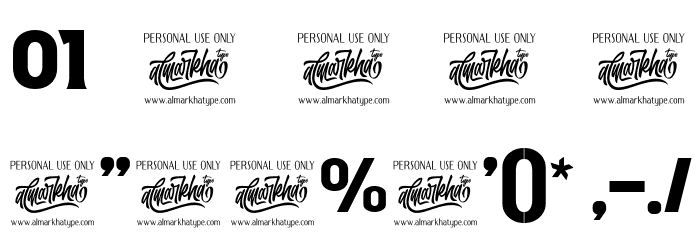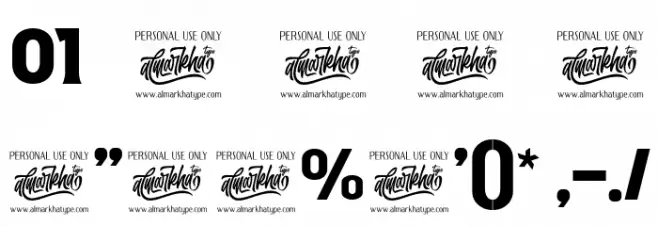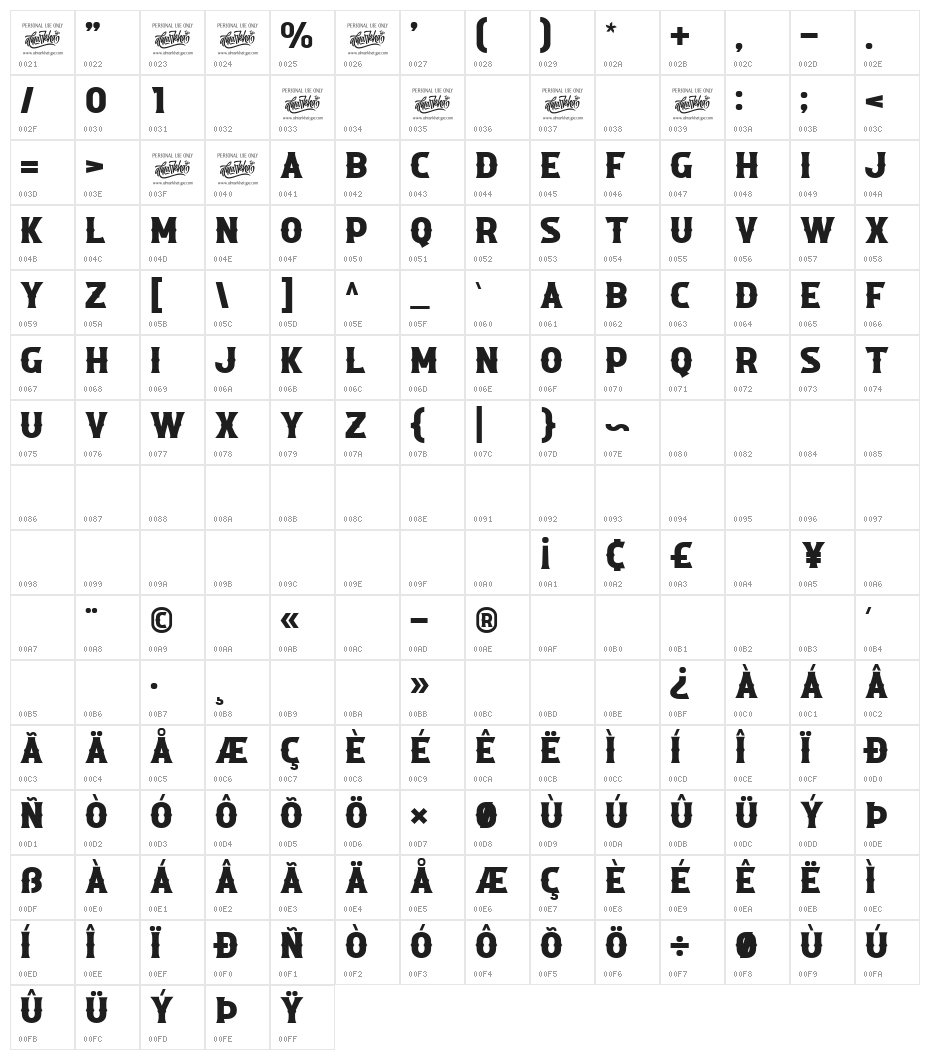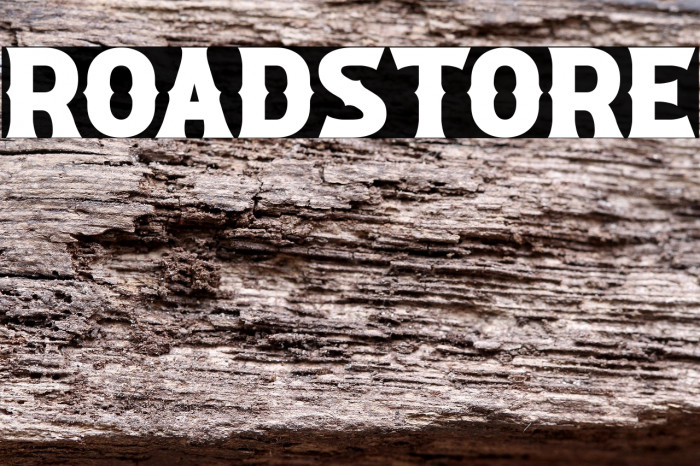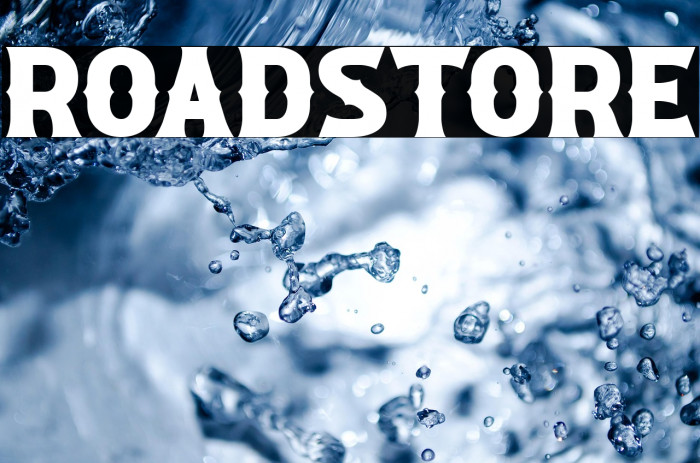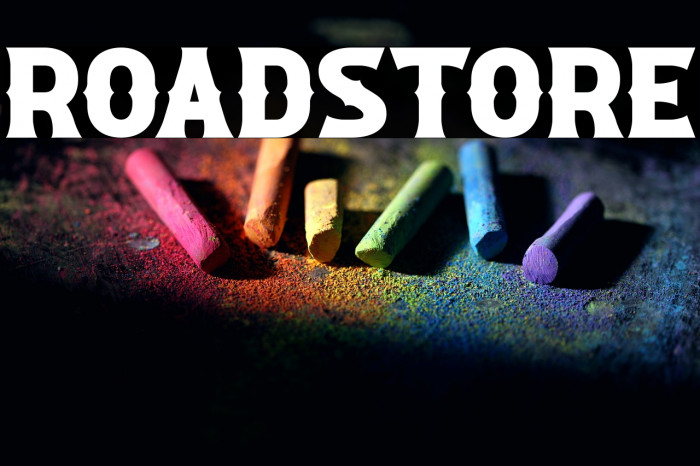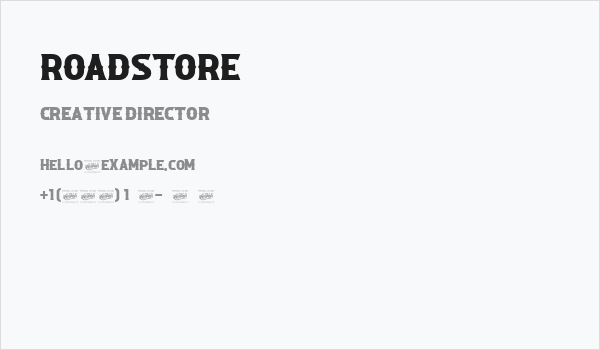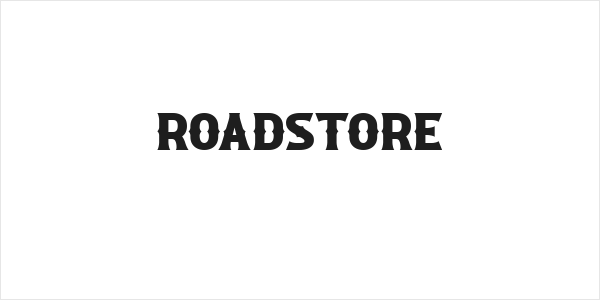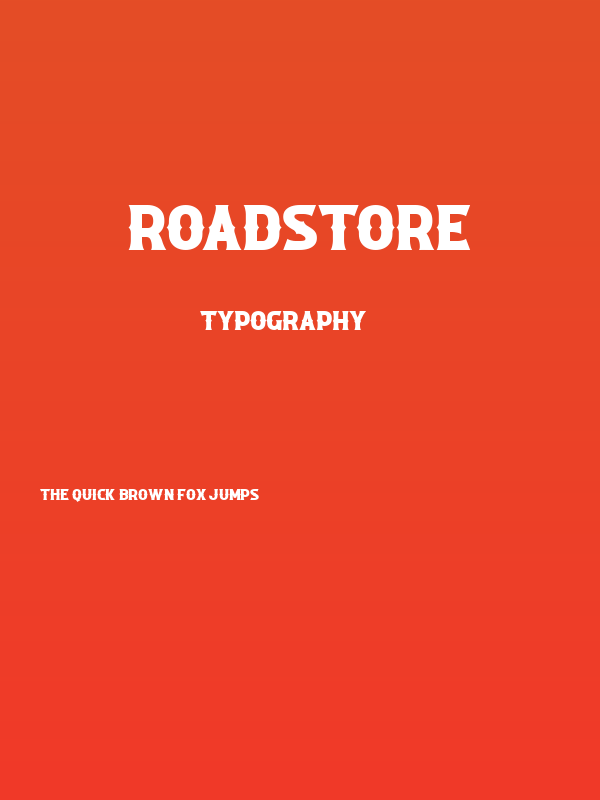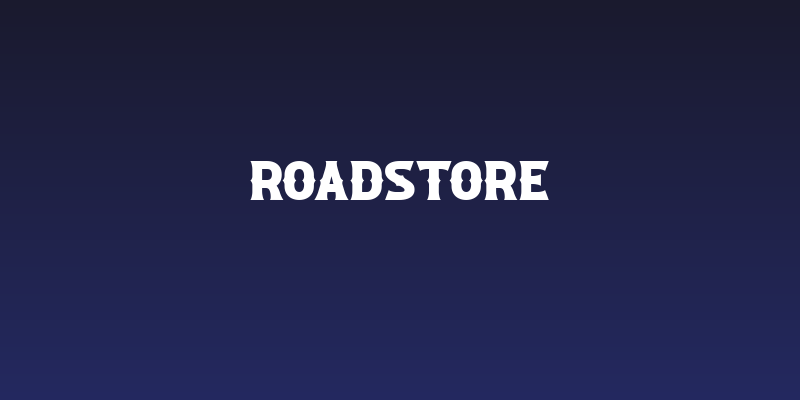
ROADSTORE Font
ROADSTORE Description
This font features a bold and striking design with a strong presence, characterized by thick, heavy strokes and sharp, angular edges. The uppercase letters are particularly dominant, with a unique style that combines elements of both traditional and modern typography. The numbers and special characters maintain the boldness and consistency of the overall design, making it suitable for impactful and attention-grabbing text. The font's aesthetic is reminiscent of vintage signage or posters, with a touch of modern flair.
| Proposed Projects | Ideal for use in branding, posters, headlines, and any design project requiring a strong visual impact. |